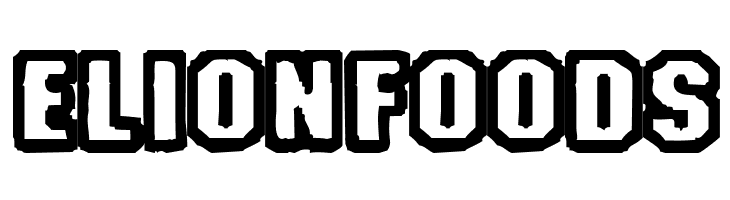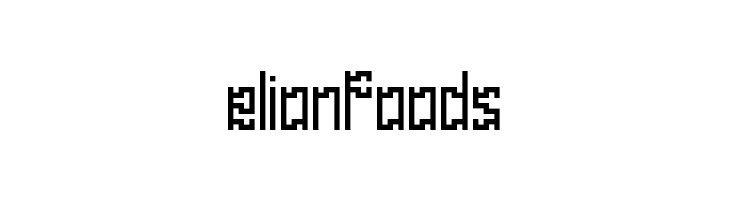
( Fonts by Grafito Design - dibujosenlinea.ideasintegrales.net )
A bold, blocky font with a modern, industrial aesthetic.
( Fonts by Insanitype )
A bold, dynamic font with playful curves and a modern-retro flair.
A bold, decorative font with high contrast and intricate details.
A futuristic, geometric font with sharp, angular lines and a technical aesthetic.
( Fonts by The Font Emporium )
Bold, outlined font with a three-dimensional effect.